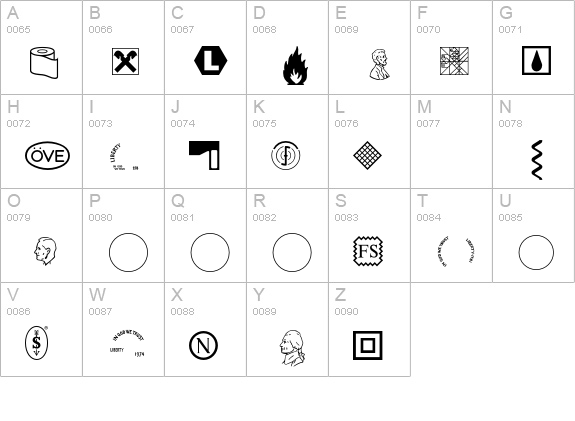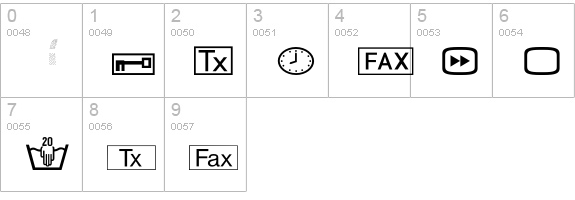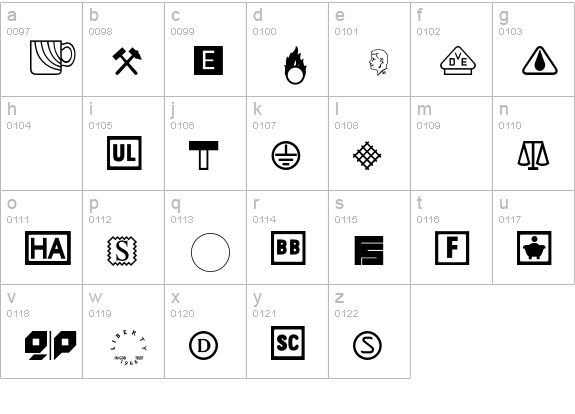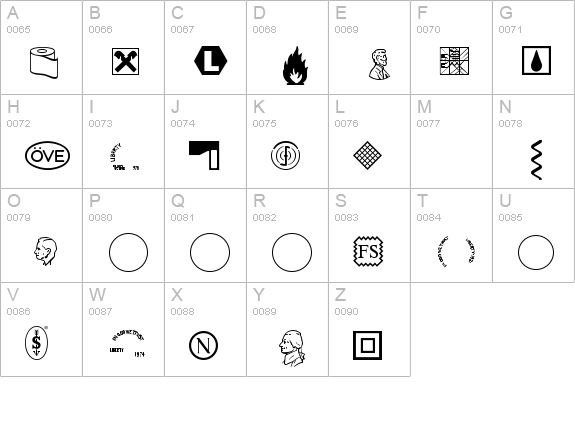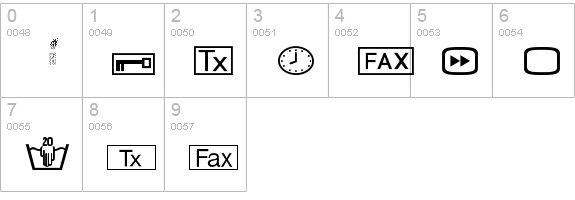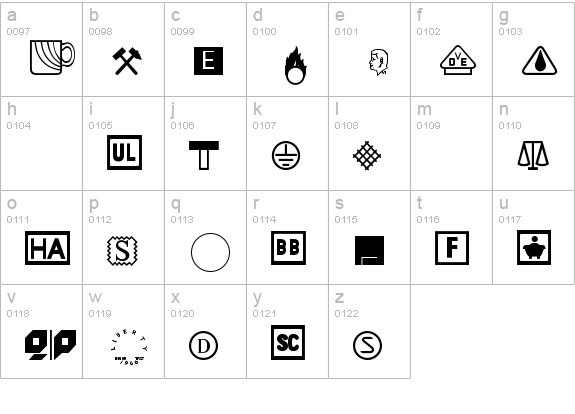
CommunicationsP08 Font Details
CommunicationsP08 is a modern and versatile font that combines sleek lines with a touch of sophistication. Its clean and clear design makes it perfect for a wide range of projects, from branding to editorial design. The font features a balanced mix of sharp edges and soft curves, creating a harmonious visual appeal. One of the best things about CommunicationsP08 is that it is completely free to download at FontsMarket.com. This means you can access this stylish font without any cost, making it a valuable addition to your font library. Whether you are working on a professional project or a personal design, CommunicationsP08 offers the flexibility and elegance you need to make your work stand out. Add a touch of modernity and flair to your designs with CommunicationsP08. Download it for free today at FontsMarket.com and elevate your projects with this exceptional font choice.